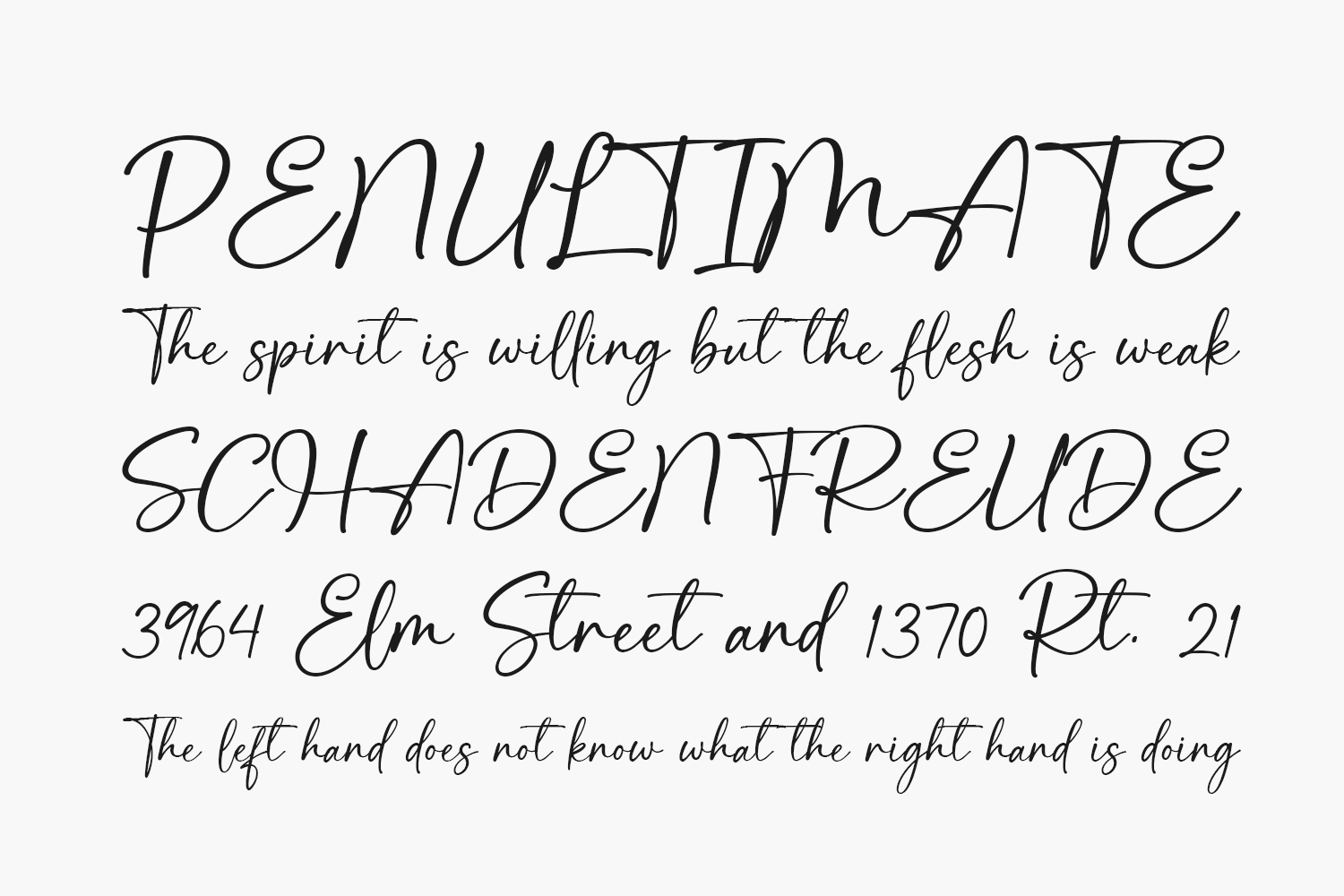
Strong Girl Free Font is a lovely and delicate script font that exudes elegance and class. This font was particularly crafted for those who need a beautiful and refreshing look to their designs. Strong Girl Free Font was designed by Ramli Setiadi and is free for personal use only. Please purchase the full version for commercial use.